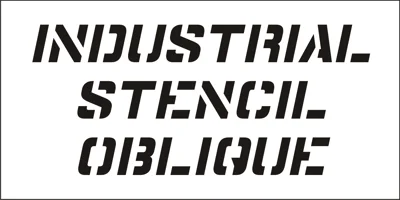
Industrial Stencil JNL Font
Industrial Stencil JNL Font is perfect for manufacturing facility signage, military equipment labeling, shipping container markings, warehouse organization systems, construction site safety signs, industrial machinery documentation, automotive parts identification, stencil art exhibitions, urban streetwear brands, tactical gear packaging, heavy equipment branding, and utilitarian design projects.
This font is exciting because it captures the uncompromising functionality and industrial strength of authentic stencil lettering used in factories, military installations, and shipping facilities worldwide, featuring precisely cut letterforms that embody the same no-nonsense efficiency and bulletproof durability that defines real industrial applications where clarity and legibility can literally be matters of life and death. The utilitarian character design reflects both the practical necessity of mass production labeling and the honest beauty of functional typography stripped down to its essential elements, creating text that works as hard as the people and machines it serves. Each letter demonstrates the kind of industrial-grade reliability and straightforward communication that gets the job done without wasting time on unnecessary decoration.
The Industrial Stencil JNL Font family includes regular and bold weights with complete character sets featuring military-grade numerals, industrial punctuation marks, and authentic stencil characteristics including proper bridge connections and cut-out patterns. Advanced versions may offer additional weight variations, condensed options for space-efficient applications, and enhanced stencil details that maintain authenticity while ensuring maximum legibility across all industrial and commercial applications.
Whether you're developing industrial brand identities, creating utilitarian signage systems, or designing authentic military-inspired content, Industrial Stencil JNL Font provides the functional reliability and industrial authenticity your project needs to communicate with the same clarity and efficiency demanded in real-world industrial environments. This typeface transforms ordinary text into practical communications that honor the honest beauty of industrial design and functional typography. The font's utilitarian character makes it essential for projects requiring authentic industrial appeal and maximum legibility. Industrial designers and military-inspired brands will appreciate how this font brings genuine stencil authenticity to their work with its professionally functional and industrially proven character that gets results.